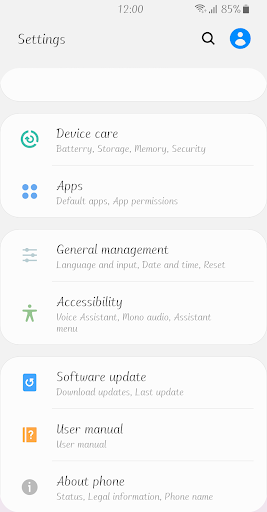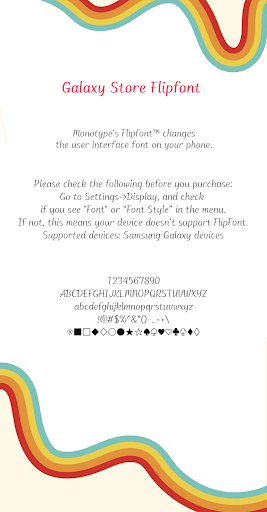
ZF Likable
It is a script-style font that feels comfortable.
You can see the change in thickness according to the movement of the stroke, and the naturally connected stroke shows a stable appearance.